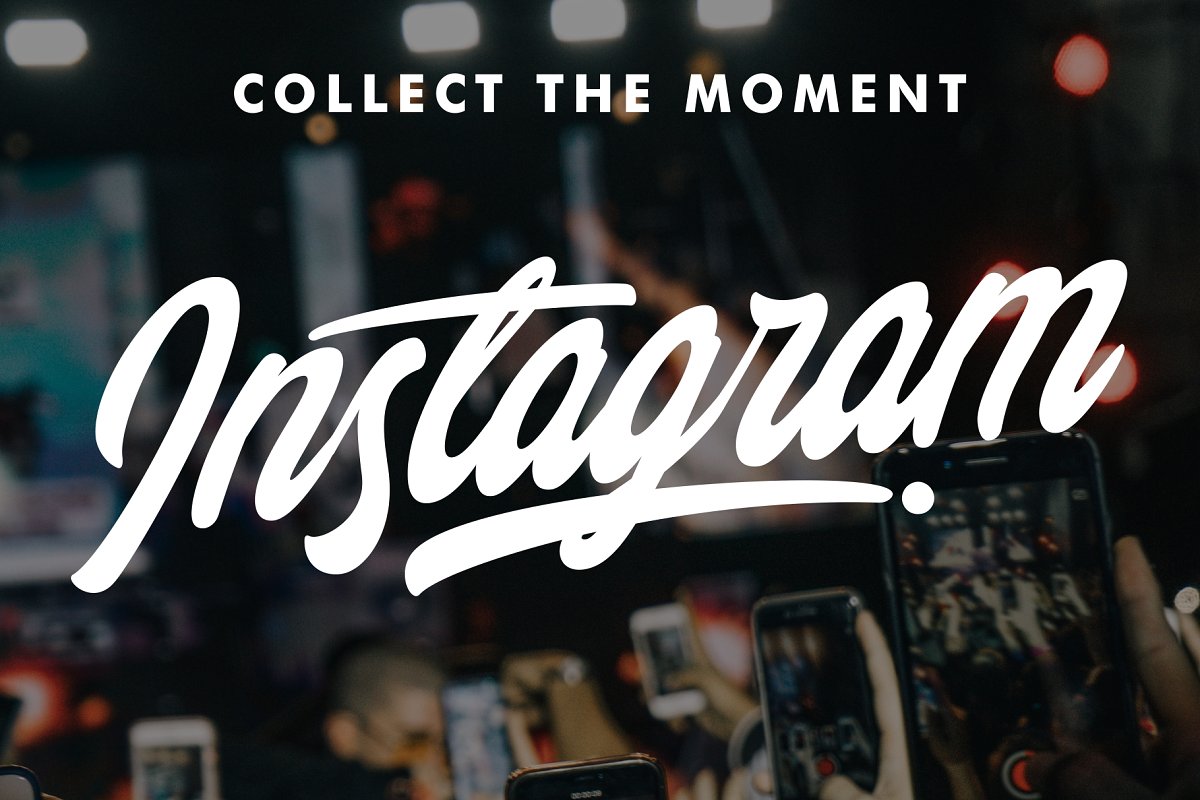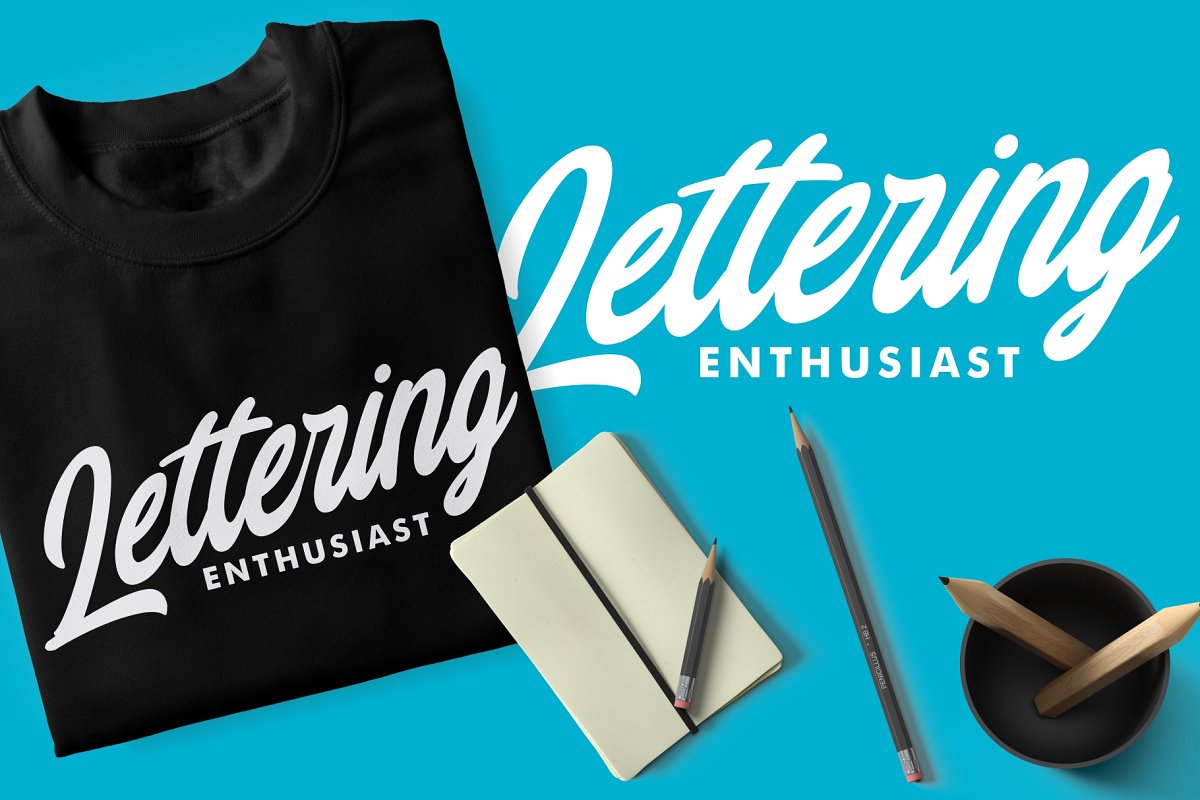
Chillout Script Font
Chillout Script Font – Free Demo
Hello world..!! Continue to be an expression stylish script typeface. I hope this can make inspire you from your work. Introducing Chillout Font. Chillout Typeface is a stylish script font inspired by bold and colorful hand lettering style, so you can bring your design look more beautifull, chill and stylish with this typeface. Chillout Typeface is great for Logotype, Branding Design, Logo Design, Digital Lettering Arts, Instagram Design, T-Shirt/Apparel, Poster, Magazine, Quotes, Signs, Advertising Design, and any Cheerfull and Colorfull design needs.